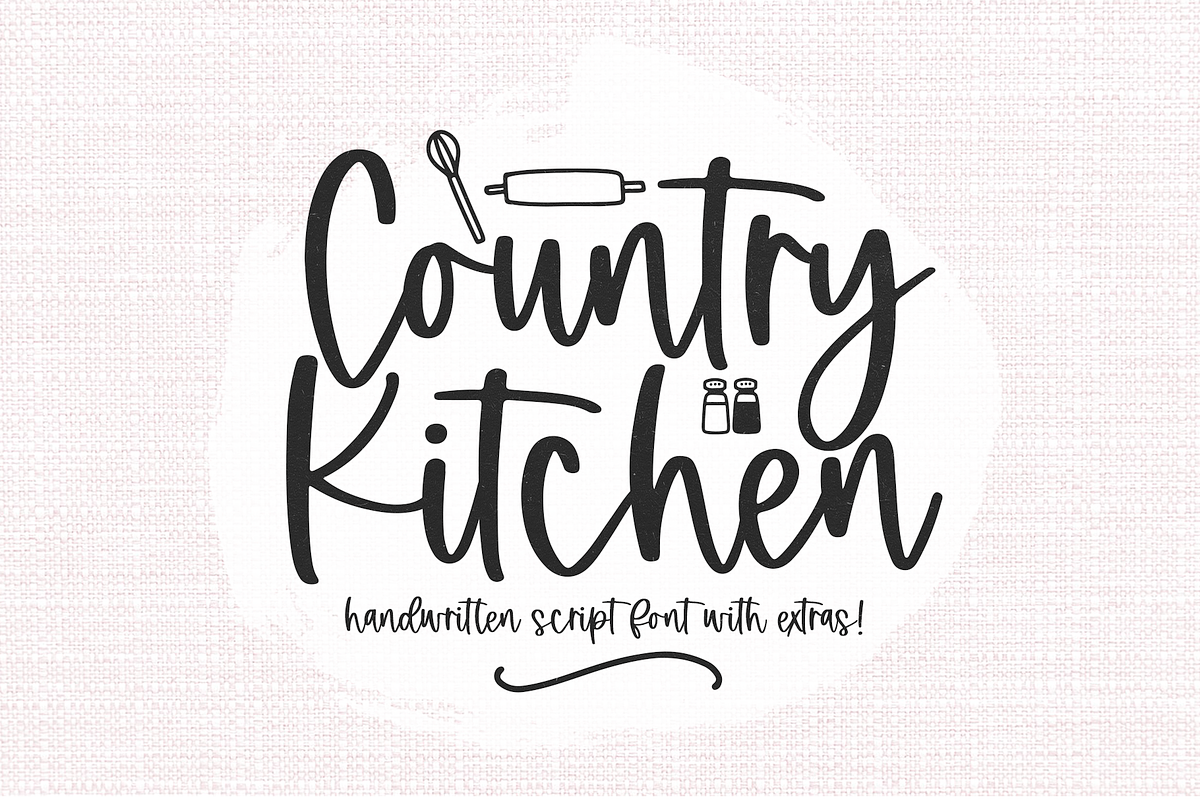
Country Kitchen Font Free Download is a rustic and charming typeface inspired by farmhouse aesthetics. With its clean lines, subtle distressing, and vintage appeal, Country Kitchen is perfect for creating cozy, welcoming branding, rustic logos, restaurant signage, product packaging, and home decor designs.
Designed to evoke warmth and nostalgia, Country Kitchen Font Free Download brings a handcrafted, country-style feel to your projects. Whether you’re working on a farm-to-table brand, a family-owned restaurant, or rustic wedding invitations, this font helps convey authenticity and a homely atmosphere.
Country Kitchen pairs beautifully with other vintage or handwritten fonts, adding a touch of rustic elegance to your designs. Its bold yet approachable style makes it versatile for both large display text and smaller, detailed typography.